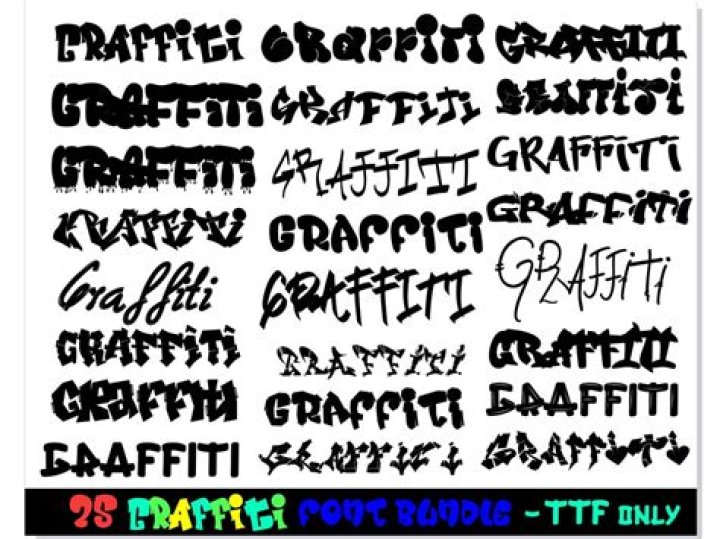
Urban Decay Urban decay is a handmade brush font that creator Zofos made to ‘celebrate graffiti, urban exploration, street calligraphy and inner city living. ‘ This font is one of the best graffiti fonts we’ve seen, with a rugged authenticity that will bring an urban feel to your projects.
What are the best graffiti fonts?
15 Best Graffiti Fonts From Envato Elements (With Unlimited Use)
• Okami – Brush Font (OTF)
• Handstyle Graffiti (TTF, OTF)
• Minority Typeface (TTF, OTF)
• Crazy Marker Graffiti Font (TTF, OTF)
• Ember Typeface (OTF)
• Desperado St Graffiti Font (TTF, OTF)
• In Knots Font (TTF, OTF)
• Rolingline Typeface (TTF, OTF)
How many fonts are there for graffiti?
Now Showing 56 Graffiti Fonts in 48 Families 1 RapScript Free 2 PaintCans Free 3 Wild Basics Free 4 Magik Marker Free 5 Rase Basic Free 6 Scrawler 3rd Free 7 StencilFont Free 8 Slanger Free 9 Captions Free 10 ToughGuy Free
What is Blacktop free graffiti typeface?
Blacktop Free Graffiti Typeface is a handwritten graffiti-style display font by SixAbove Studios. Rugged and legible, it brings the bold characteristic of street art. Hence, you can now build some breakdown vibe into your design beats. This typeface will work great for event posters, product branding, logotype, headline and a lot more!
What is the best stencil font for graffiti?
Mersey Cowboy is a great choice if you want your type to look messy and chaotic, but still very readable. Again, this graffiti font is free for personal use, but you’ll need to shell out for a licence to use it commercially. 12. Nebulous is a decorative free font that brings a touch of distressed sci-fi chic to the stencil font category.
What is graffiti treat font used for?
Graffiti Treat is a staggered, angular, graffiti inspired display font. ARSÉNICO is a typeface inspired in tattoo letters, chicano culture and street art. It works well with normal size text, but it works even better for large displays, short words, or even just to incorporate a few or single characters in a design.